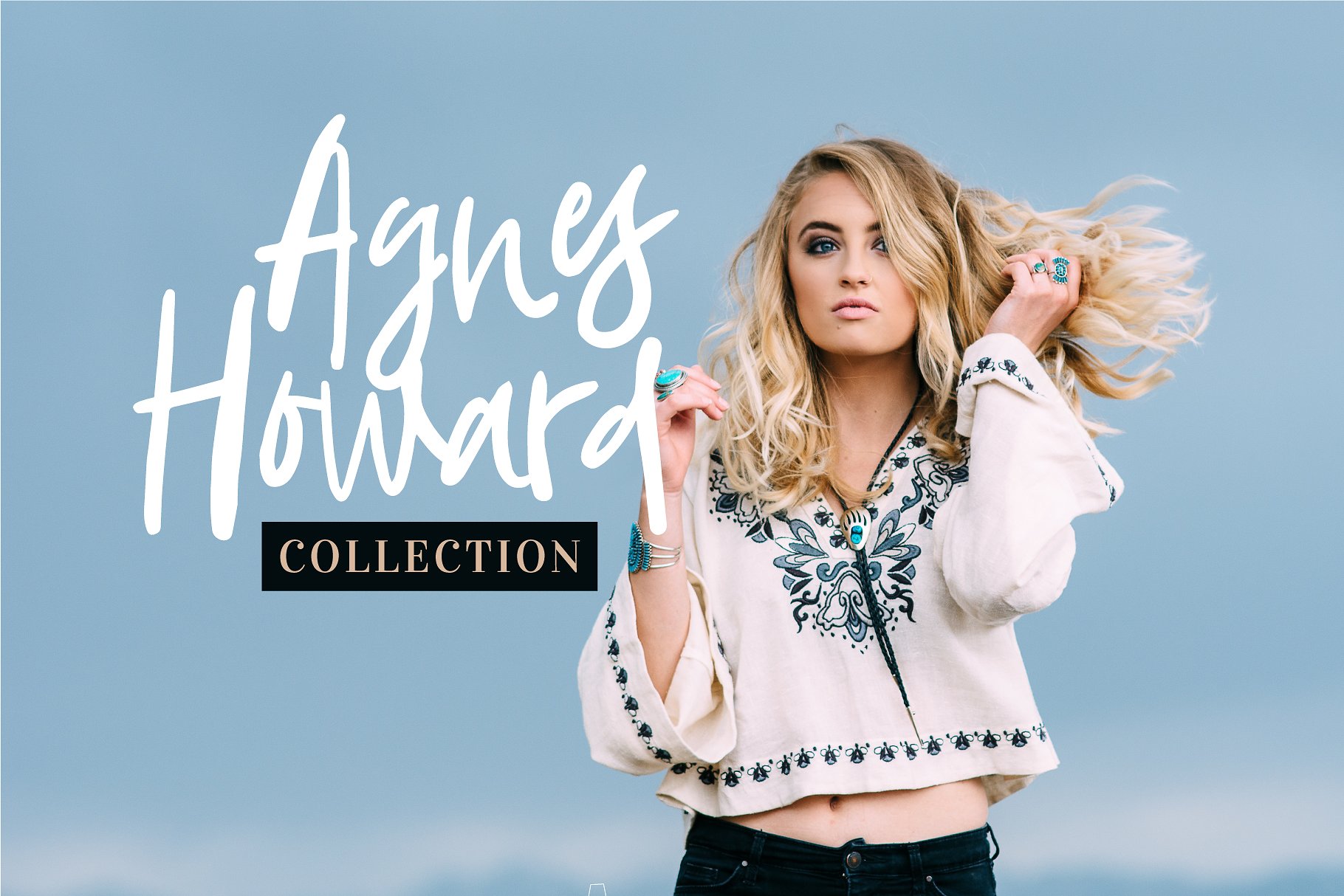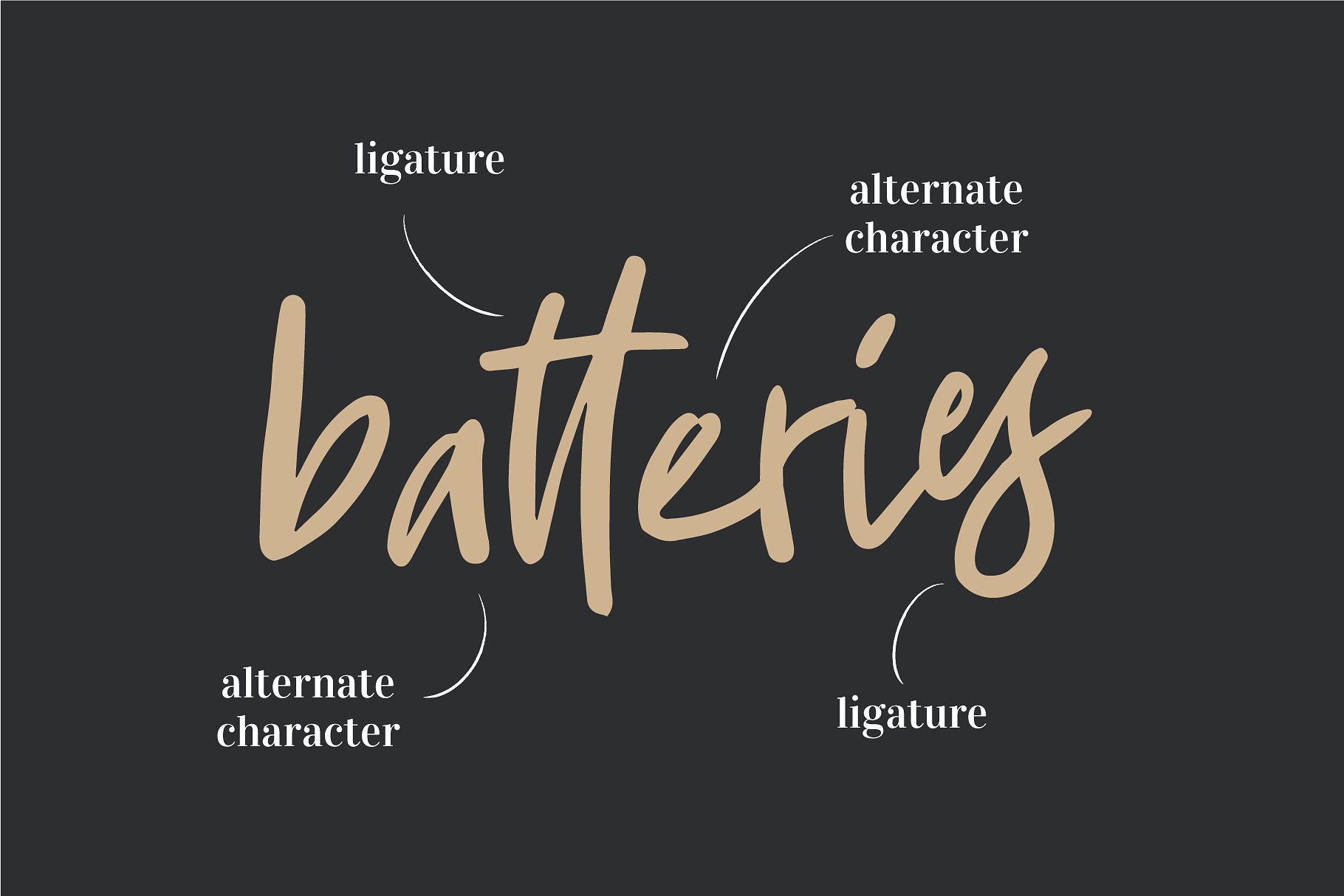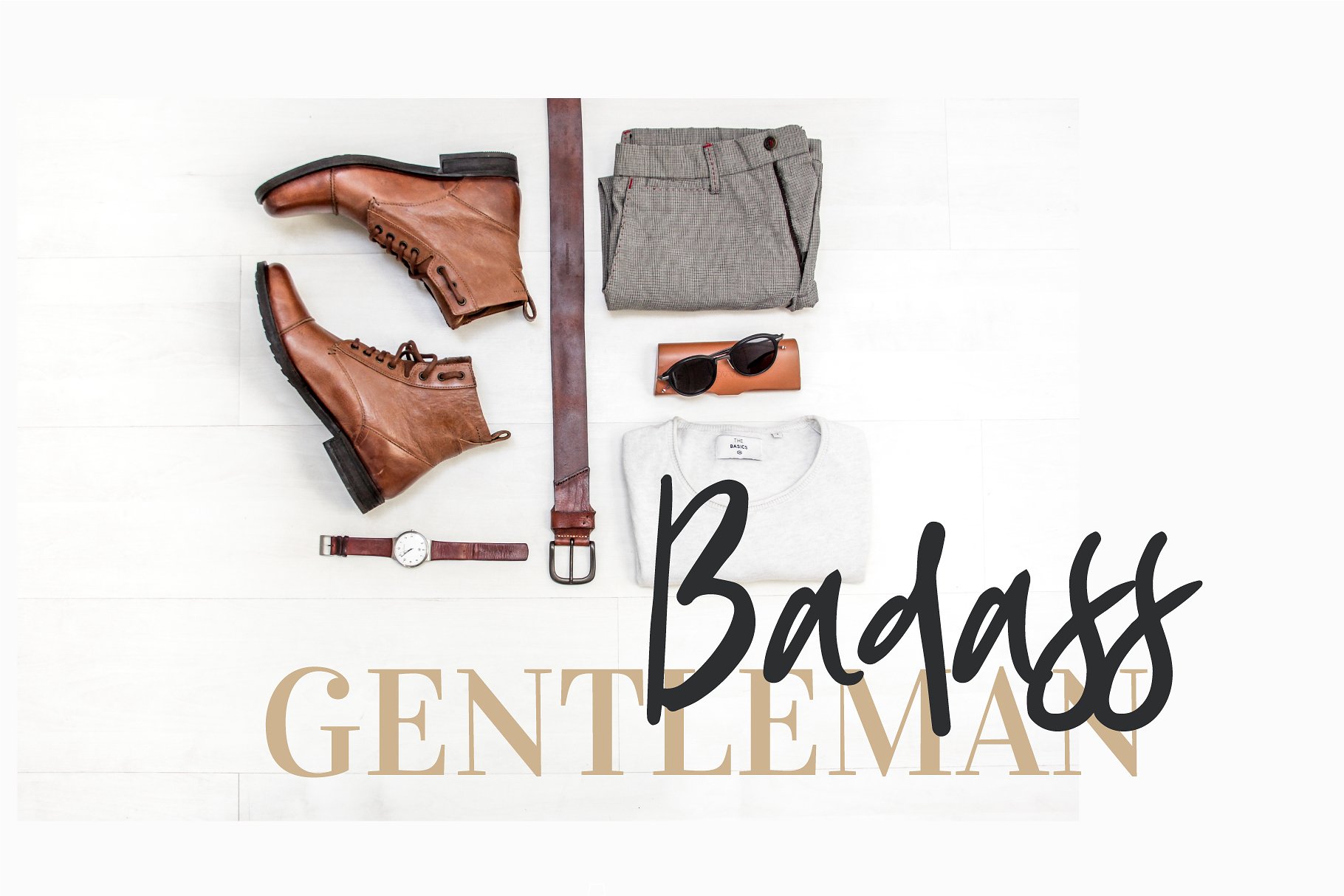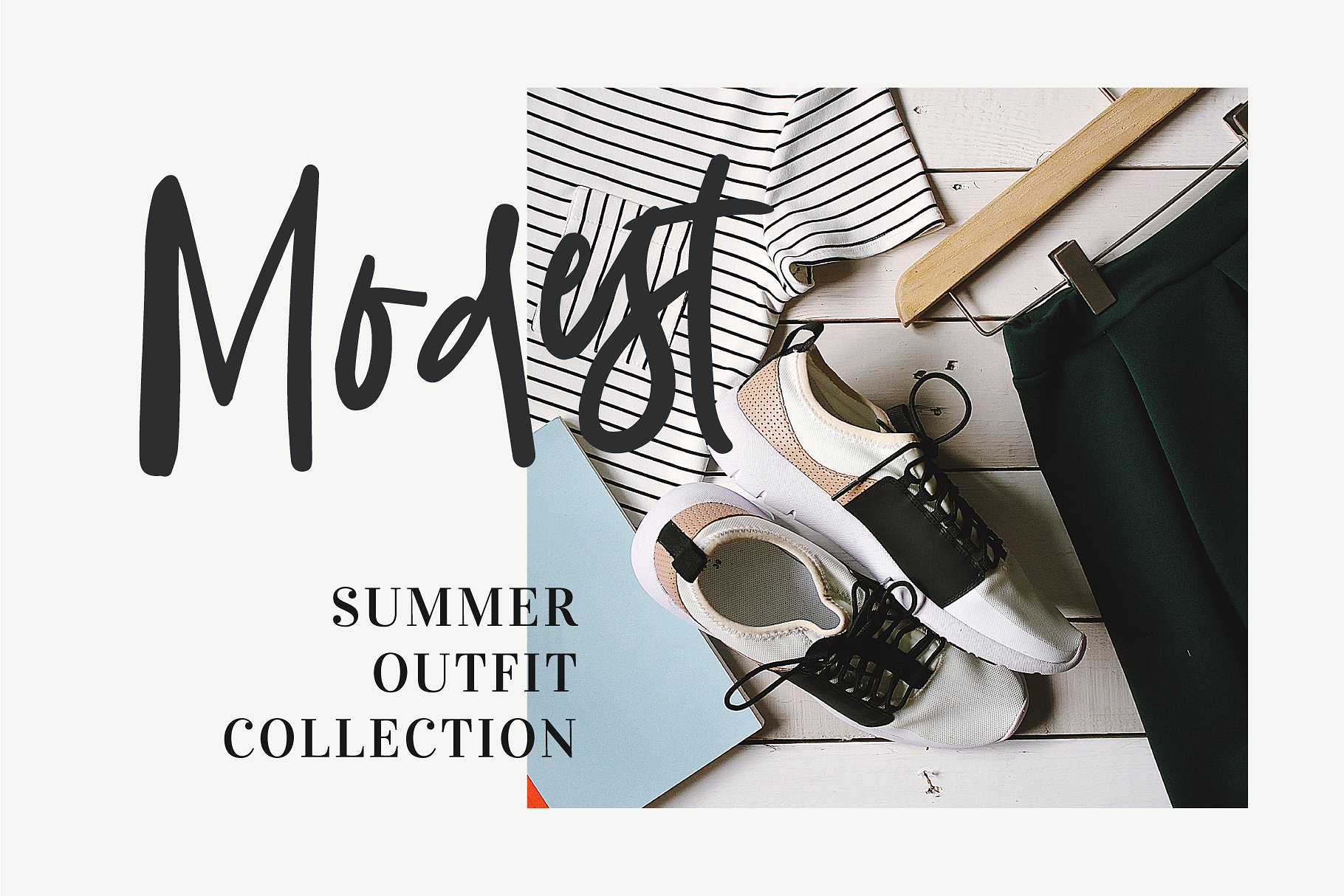
Aescudos Handwritten Font
Introducing Aescudos . It is designed by Karen Dunn, this is a premium font, are sold on creativemarket, but it was great, it is free today for download. Aescudos – a natural handwritten font that is perfect for logotype, headline, invitation, greeting card and more. Available with a bunch of alternative characters and ligatures which are accessible by using Adobe Illustrator, InDesign, and Photoshop.